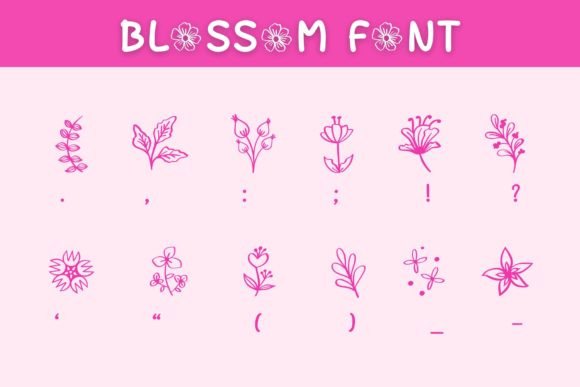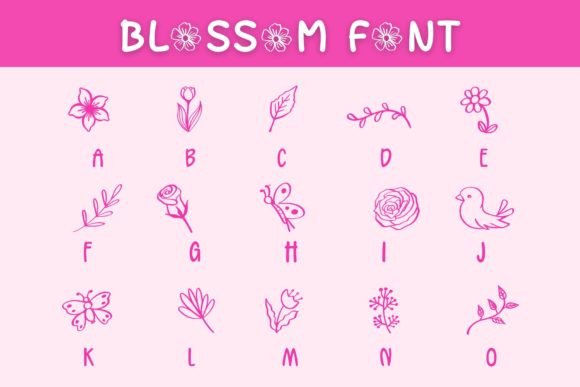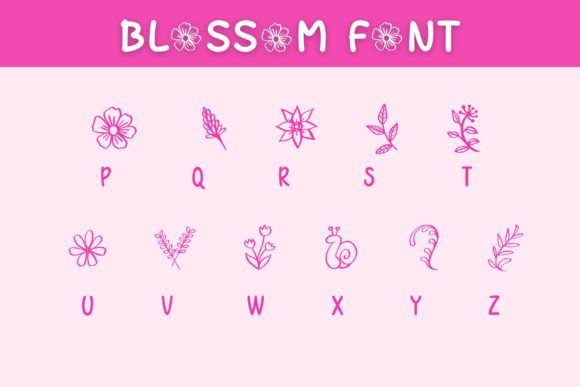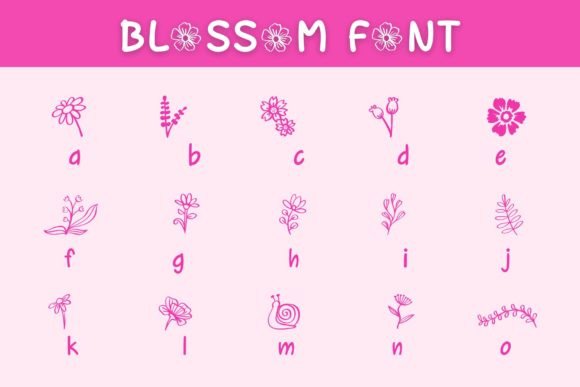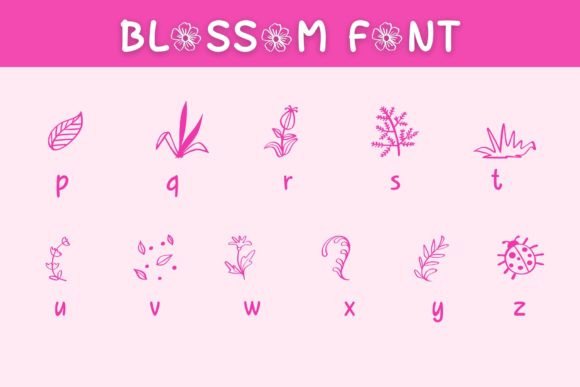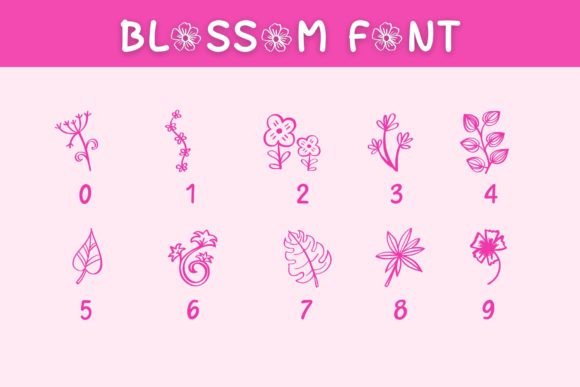
Introducing Blossom Font: The Charming Dingbat Font for Creative Designs
Are you a designer, crafter, or DIY enthusiast looking for a unique and charming font to add a touch of cuteness to your projects? Look no further than Blossom Font, a delightful dingbat font featuring beautiful flower illustrations. In this article, we’ll explore the features and benefits of Blossom Font, and how it can elevate your designs, from children’s books to wedding invitations, and beyond.
What is Blossom Font?
Blossom Font, also known as Blossom Doodle, is a dingbat font that showcases an adorable collection of flower illustrations. Each character in the font is carefully designed to bring a touch of whimsy and charm to your designs. The font is perfect for anyone who loves flowers, nature, and all things cute.
Features of Blossom Font
- Unique Flower Illustrations: Blossom Font features a wide range of beautiful flower illustrations, each one carefully crafted to bring a touch of elegance and charm to your designs.
- Dingbat Font: As a dingbat font, Blossom Font uses images instead of traditional characters, allowing you to add visual interest to your designs.
- Scalable: Blossom Font is designed to be scalable, ensuring that your designs look great in any size or format.
- Easily Editable: The font is easy to edit, allowing you to customize your designs to suit your needs.
Uses for Blossom Font
Blossom Font is incredibly versatile and can be used for a wide range of creative projects, including:
- Children’s Books: Add a touch of whimsy and charm to your children’s book illustrations with Blossom Font.
- Greeting Cards: Create beautiful and eye-catching greeting cards for any occasion, from birthdays to weddings.
- Wedding Invitations: Make your wedding invitations truly special with Blossom Font’s charming flower illustrations.
- DIY and Crafts: Use Blossom Font to add a personal touch to your DIY projects, such as decorations, scrapbooking, and more.
- Logos and Branding: Create a unique and memorable logo for your business or brand with Blossom Font.
- Social Media Posts: Add a touch of cuteness to your social media posts with Blossom Font’s charming illustrations.
Benefits of Using Blossom Font
So, why choose Blossom Font for your designs? Here are just a few benefits:
- Adds Visual Interest: Blossom Font’s unique flower illustrations add visual interest to your designs, making them stand out from the crowd.
- Evokes Emotion: The charming illustrations in Blossom Font are sure to evoke emotions and create a connection with your audience.
- Versatile: Blossom Font can be used for a wide range of projects, making it a great addition to any designer’s toolkit.
Blossom Font is a charming dingbat font that is sure to delight designers, crafters, and DIY enthusiasts alike. With its unique flower illustrations, scalability, and ease of use, Blossom Font is the perfect addition to any creative project. Whether you’re creating children’s books, greeting cards, wedding invitations, or social media posts, Blossom Font is sure to bring a touch of cuteness and whimsy to your designs. So why wait? Download Blossom Font today and start creating your own beautiful designs!